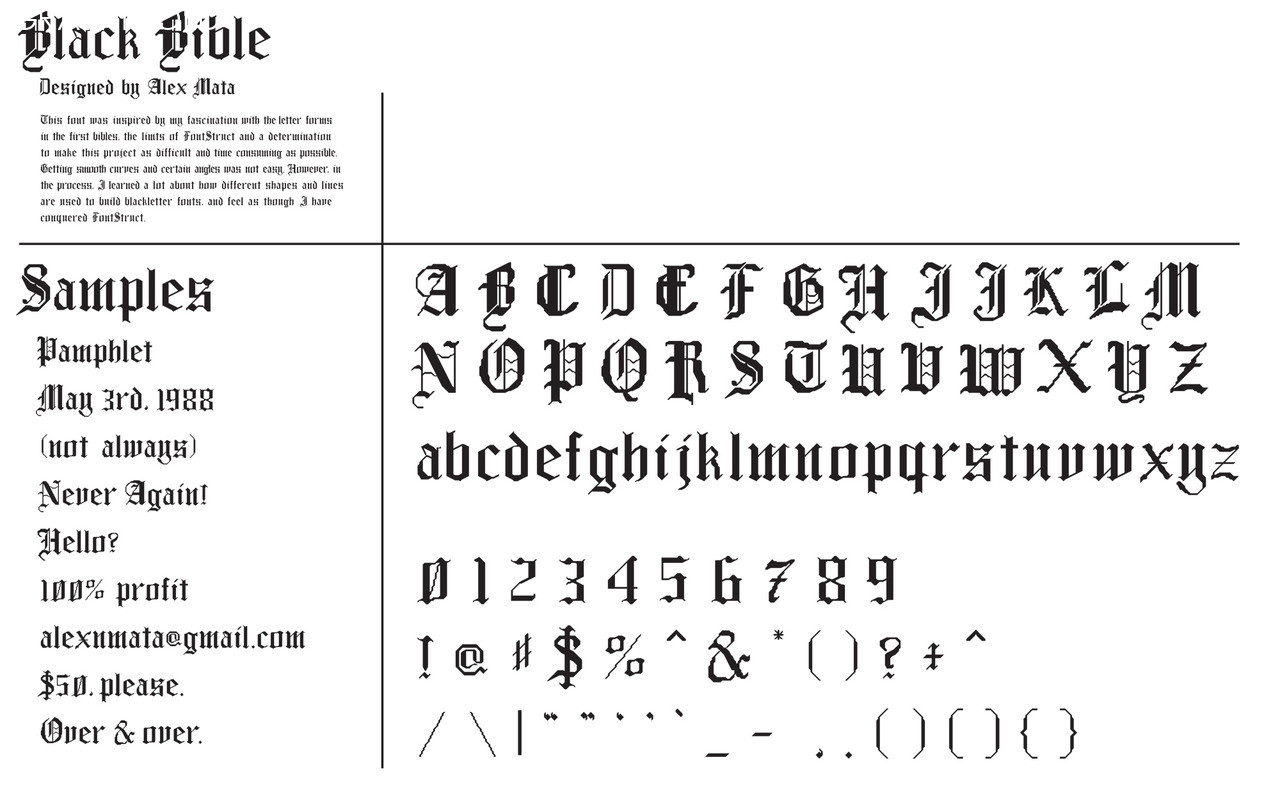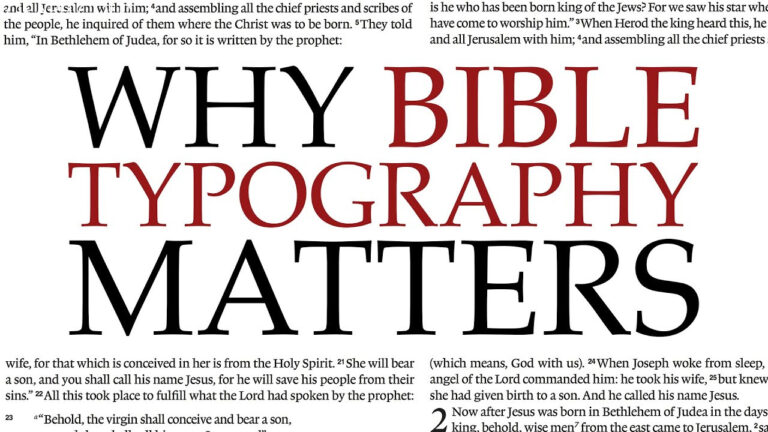
Exploring The Beauty Of Bible Fonts: A Journey Through Time
The Importance of Choosing the Right bible font
Choosing the right font for your Bible is an important consideration when looking to purchase a new Bible. The font not only affects the readability of the text but also impacts the overall experience of reading the Bible. There are several factors to consider when choosing a Bible font that best suits your needs.
Size
The size of the font is an important consideration when selecting a Bible. The font size should be large enough to read comfortably without straining the eyes. A font size of 9-10 points is generally considered standard for most Bibles, while larger fonts are recommended for those with visual impairments.
Style
The style of the font is another important consideration when selecting a Bible. Fonts with serifs, or small decorative marks at the end of each stroke, are generally considered more traditional and are commonly used in print Bibles. Sans-serif fonts, which do not have these decorative marks, are more modern and minimalist in style. Some Bibles also use calligraphic or script fonts for a more decorative and ornate appearance.
Legibility
Legibility is the most important factor to consider when selecting a Bible font. The font should be easy to read and not cause eye strain, even during long reading sessions. Fonts with good legibility are typically those with a consistent stroke width, clear letterforms, and adequate spacing between letters and lines.
Context
The context in which the Bible will be used is also an important factor to consider when selecting a font. Bibles designed for study purposes may use fonts with more spacing between letters and lines to accommodate note-taking, while those designed for preaching may use larger and bolder fonts for easier visibility from a pulpit.
Conclusion
In conclusion, choosing the right Bible font is crucial for a comfortable and enjoyable reading experience. Consider the size, style, legibility, and context when selecting a font that best fits your needs. Taking the time to choose the right font will ensure a lifetime of happy and fulfilling Bible reading.